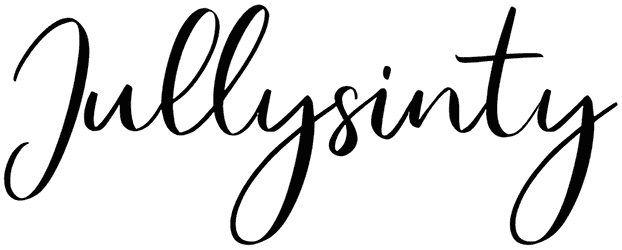
Jullysinty Font
Jullysinty is a light calligraphy font used for thin tattoos. This script font is a work of art with very narrow lines that has a luxurious look and works great for women’s branding or fashion and apparel-related work. Even without numbers, this handwritten font can introduce a different format to your design world, which will create a wonderful movement of human emotions.